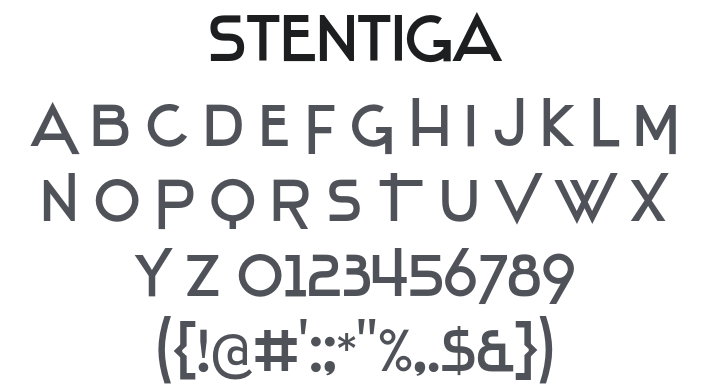
Stentiga Font
About Stentiga
Stentiga is a simple, clean geometric sans-serif headline typeface inspired by the classic logo of the US game show Match Game — its unassuming, balanced letterforms carry a cheerful, whimsical geometry that feels both retro-TV and quietly modern. OpenType stylistic alternates add extra personality options. Perfect for game show aesthetics, retro media branding, clean editorial headlines, minimal logos, and any design needing friendly, unpretentious geometric charm.